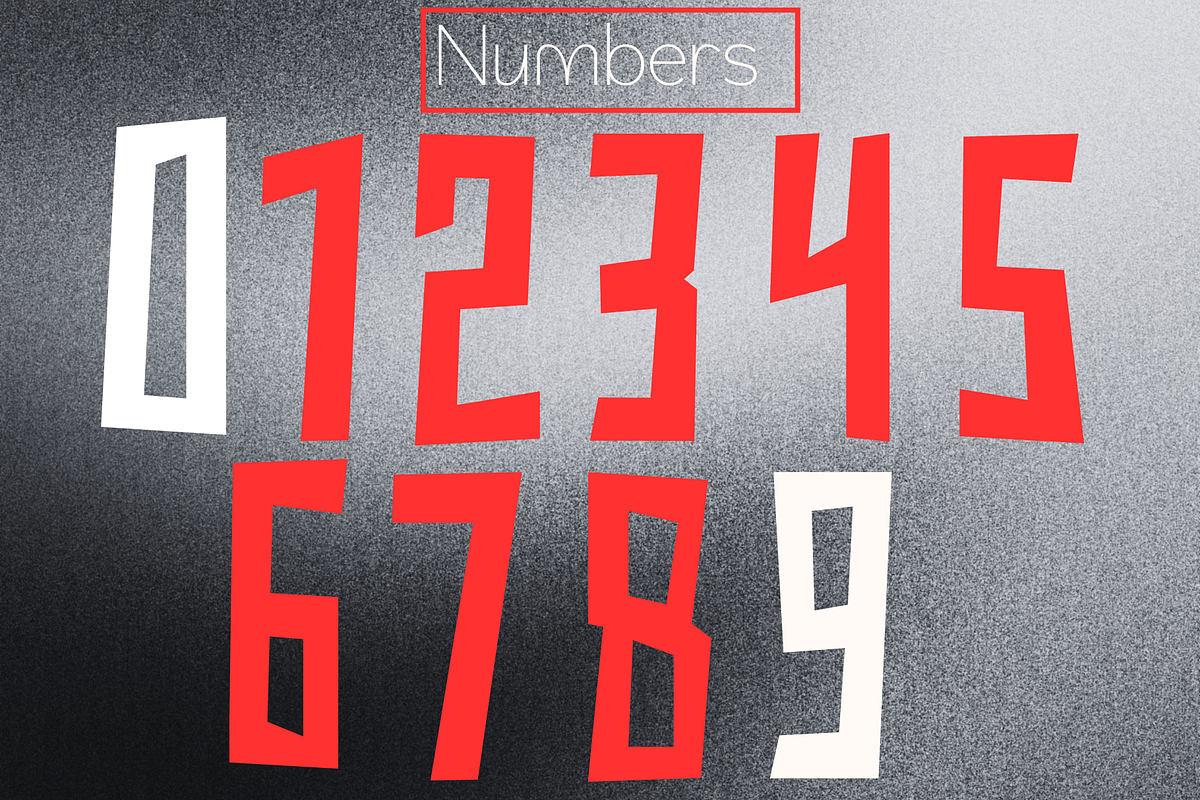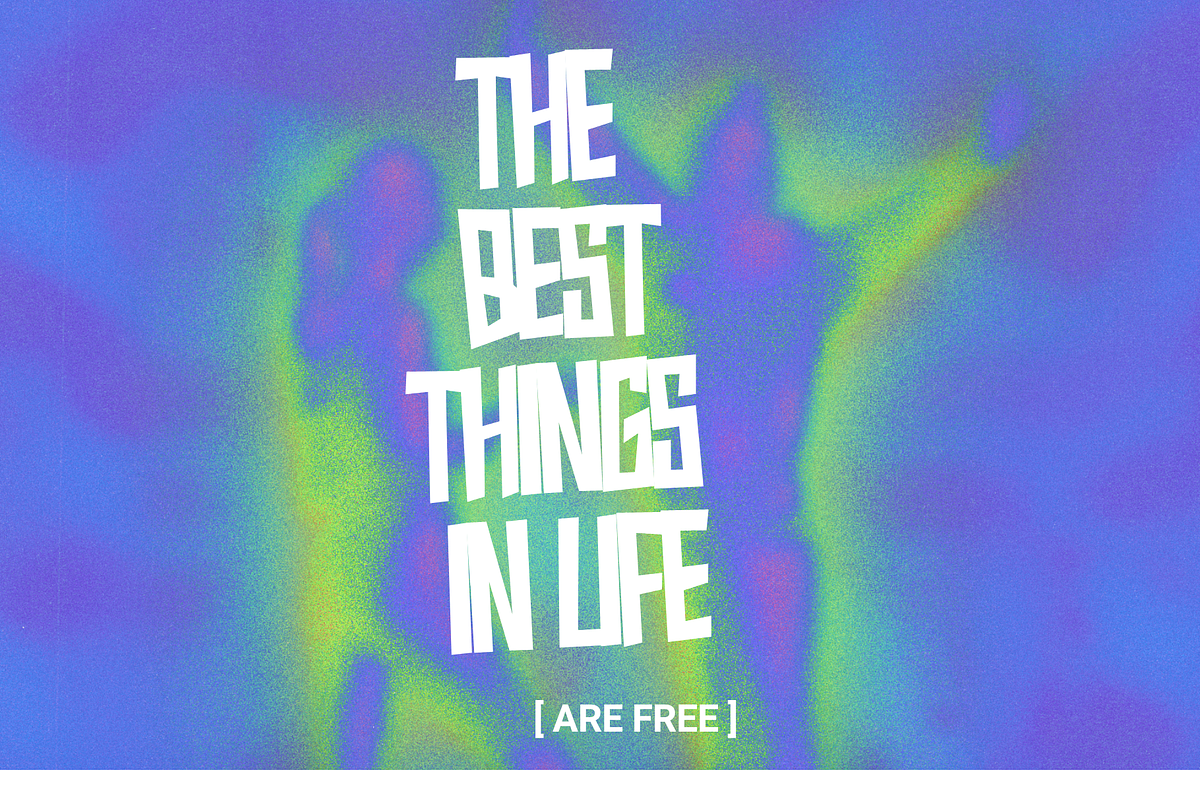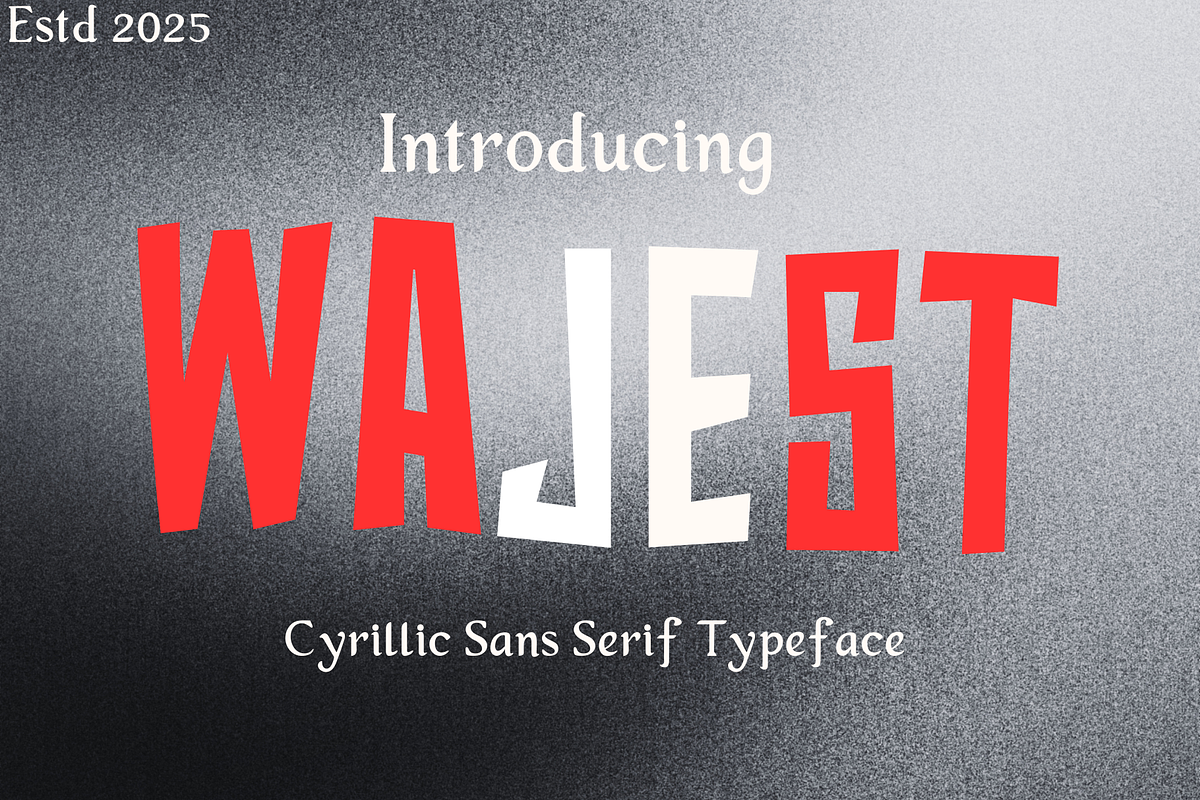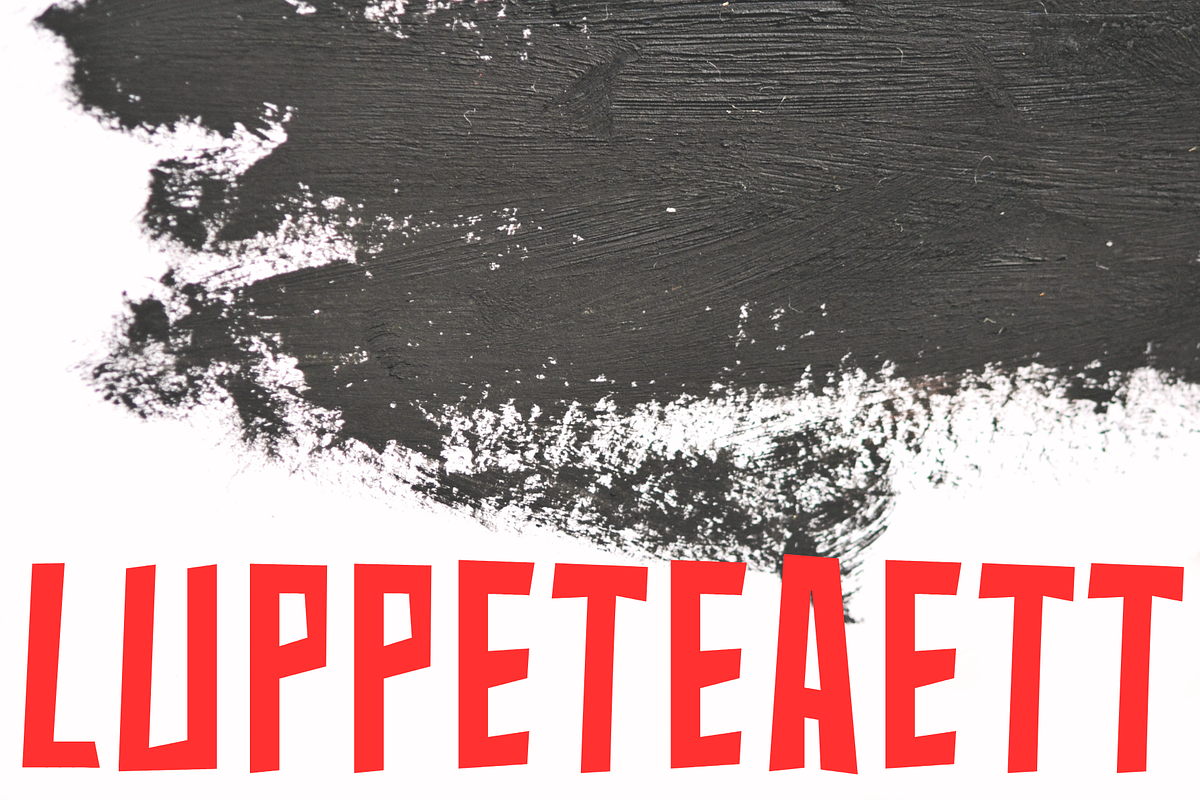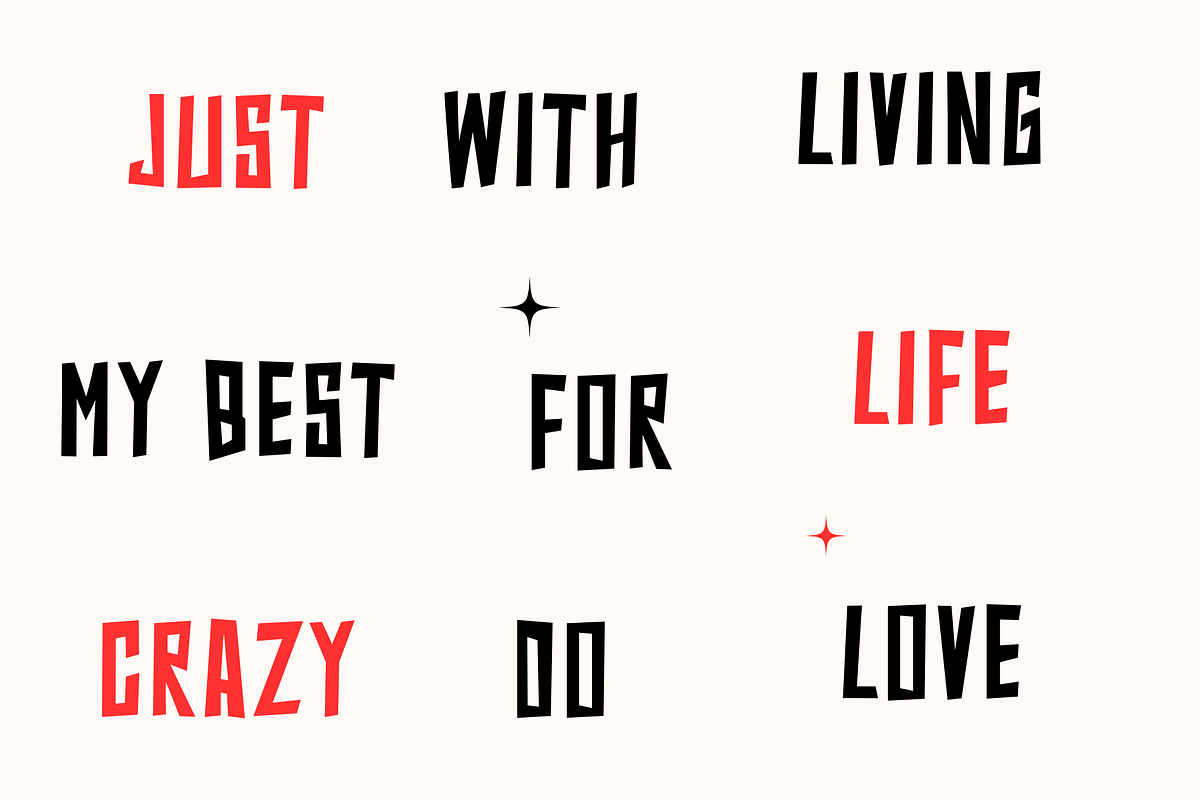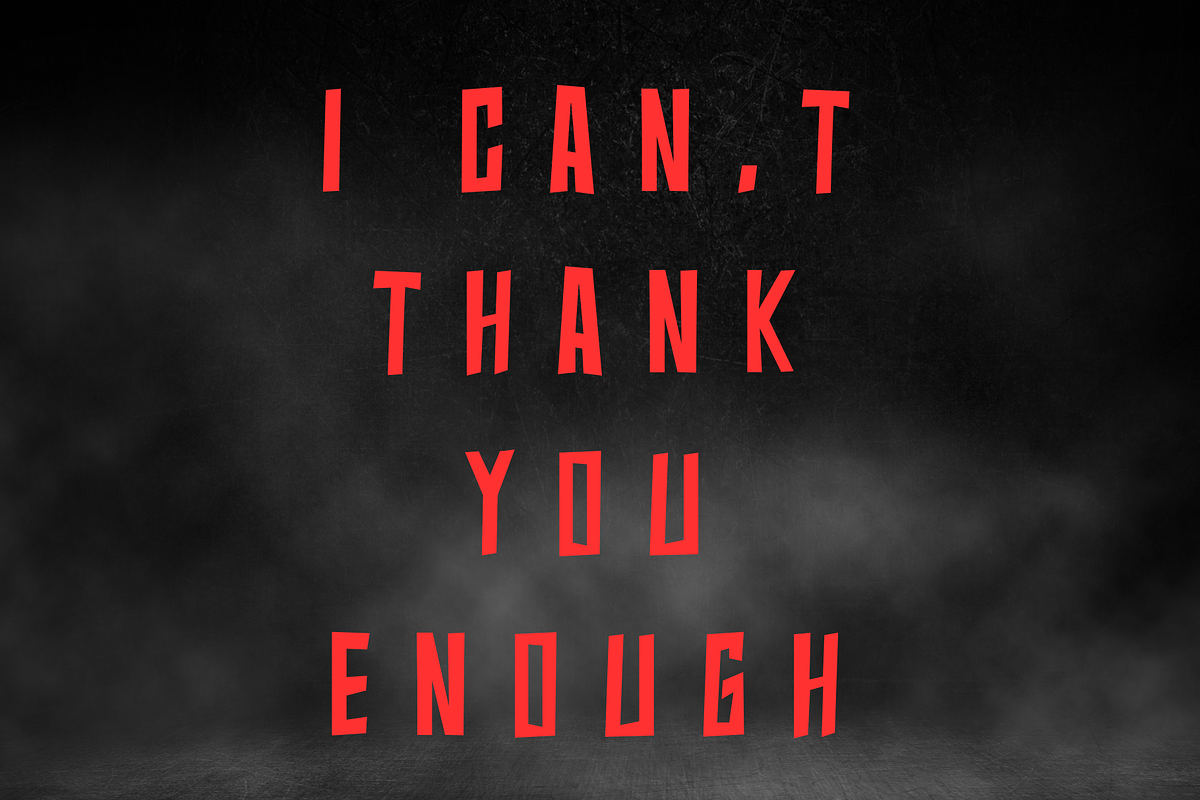
Wajest-Cyrillic Sans Serif
I know you have been waiting for this :) And new modern calligraphy font with Latin & Cyrillic support is here. It's Wajest
This beautiful font is for those who are needing of elegance and stylish for their designs and particularly well suited for wedding invitations, cards and feminine branding. Language Support; English, French, Italian, Spanish, Portuguese, German, Swedish, Norwegian, Danish, Dutch, Finnish, Indonesian, Malay, Hungarian, Polish, Croatian, Turkish, Romanian, Czech, Latvian, Lithuanian, Slovak, Slovenian.